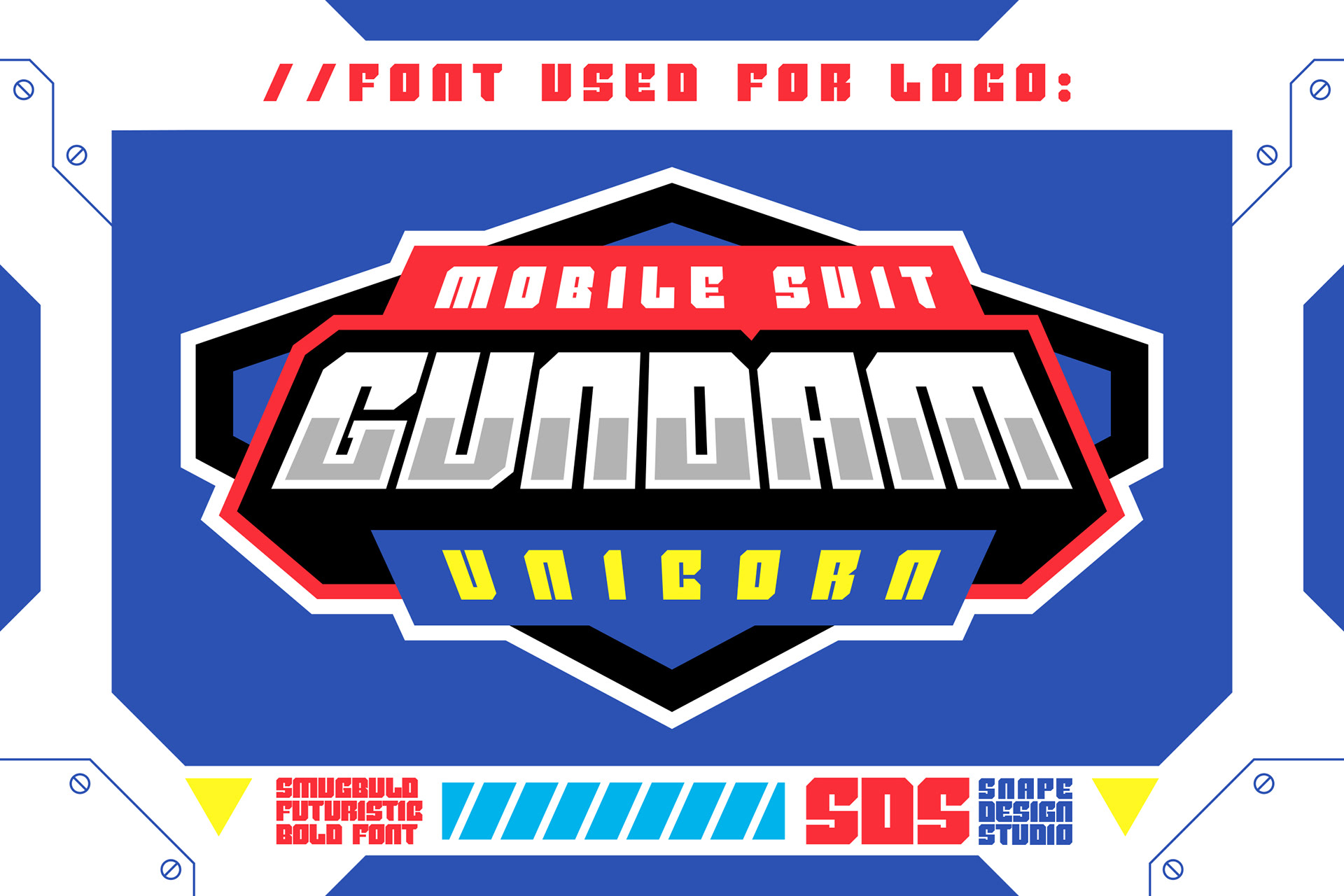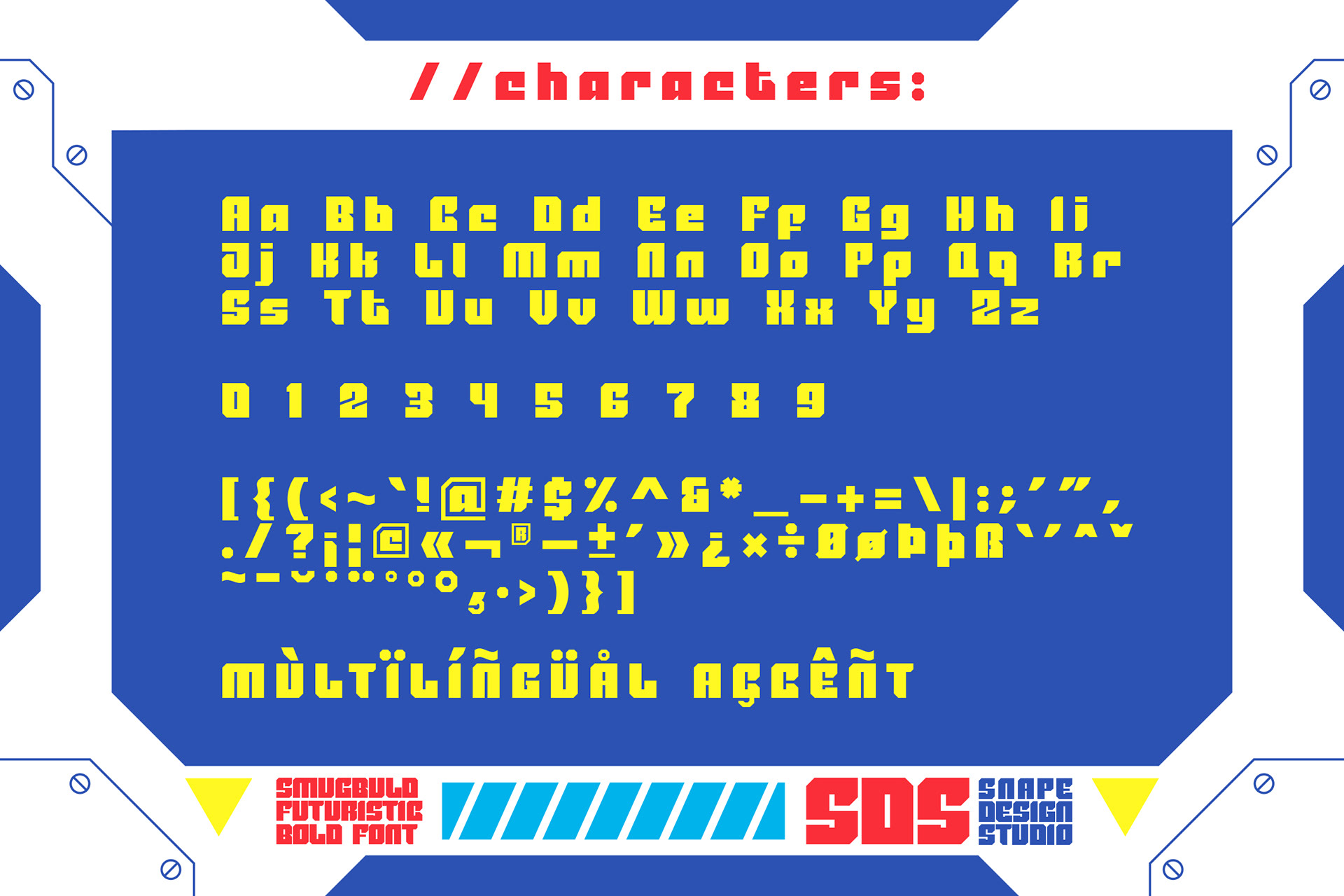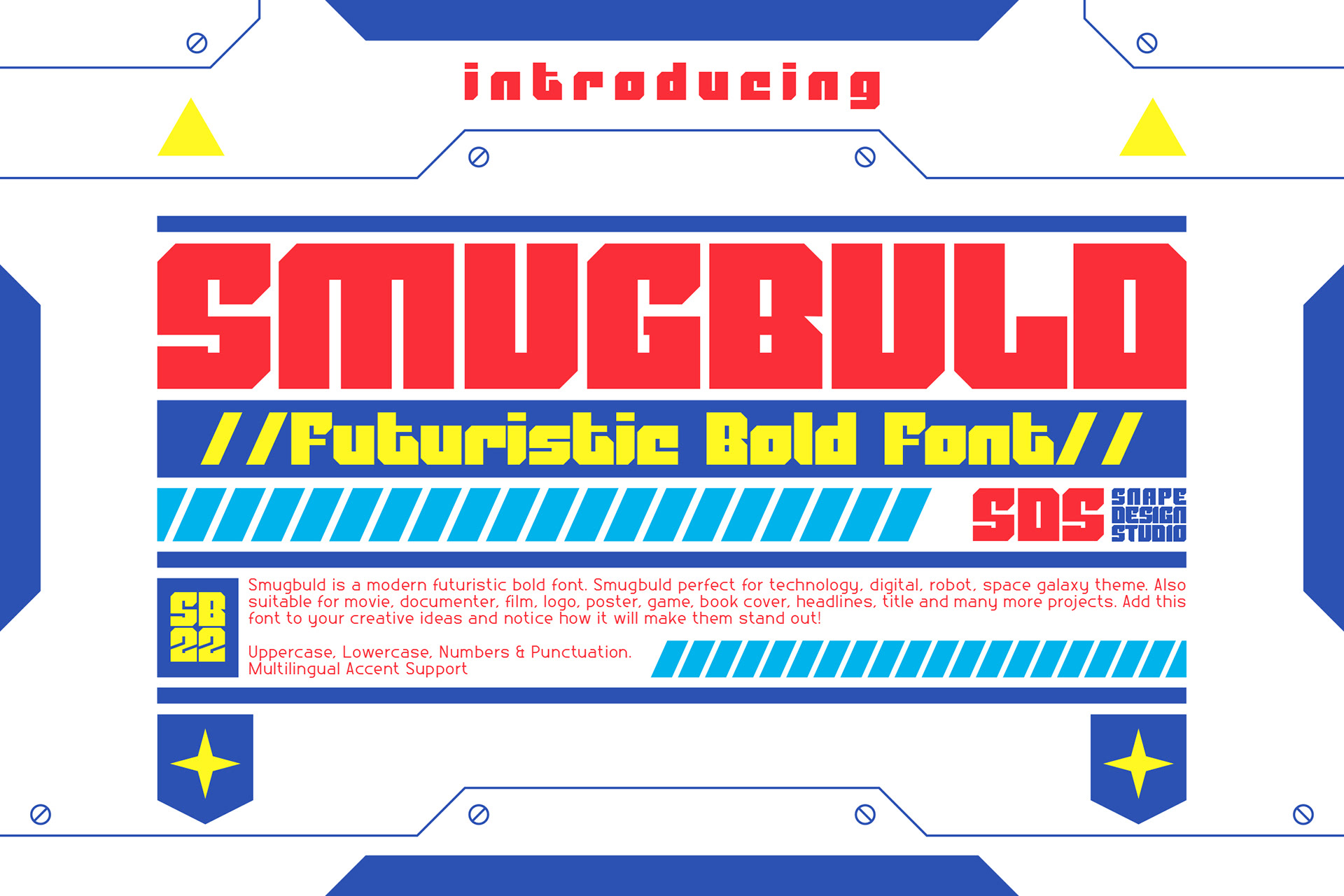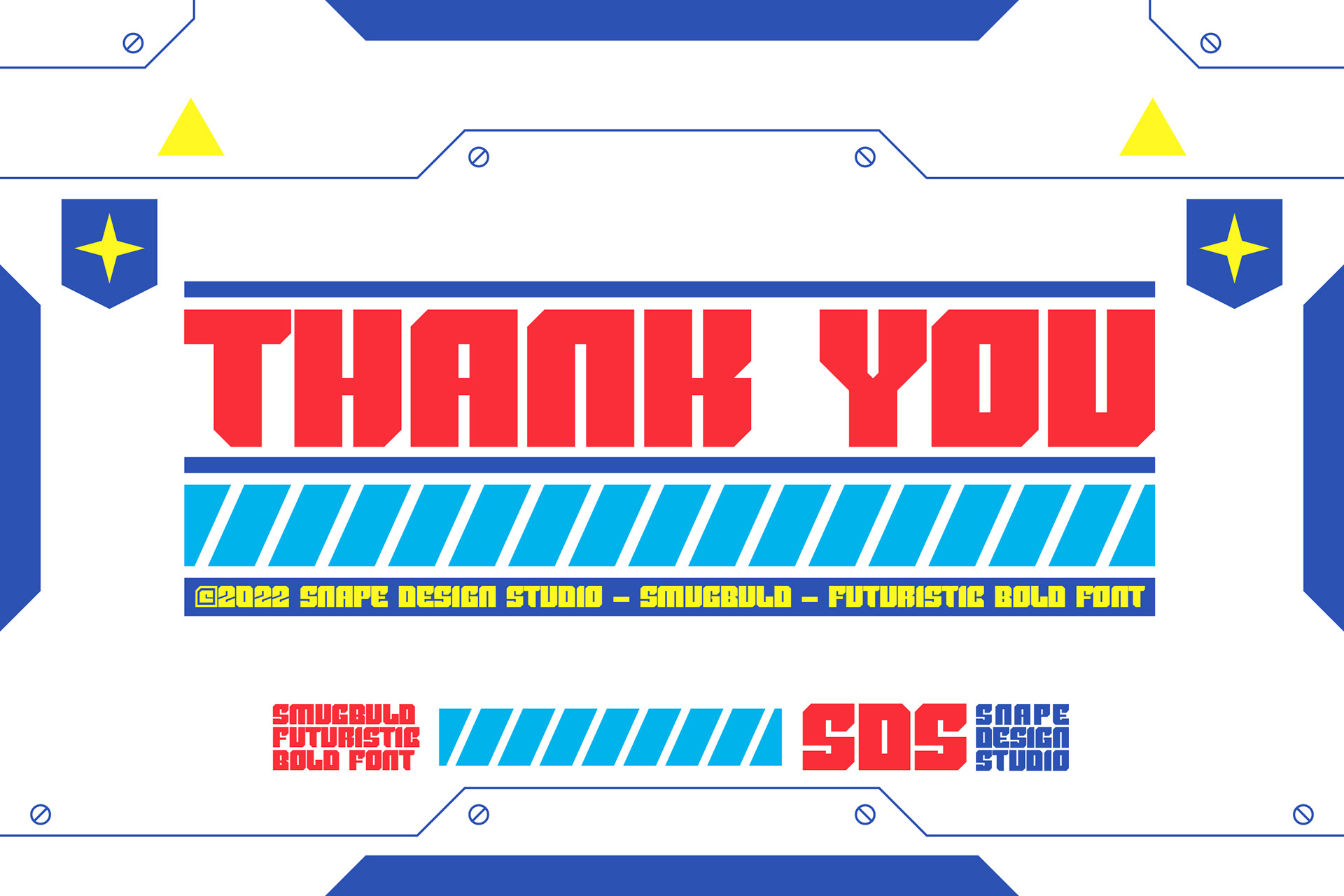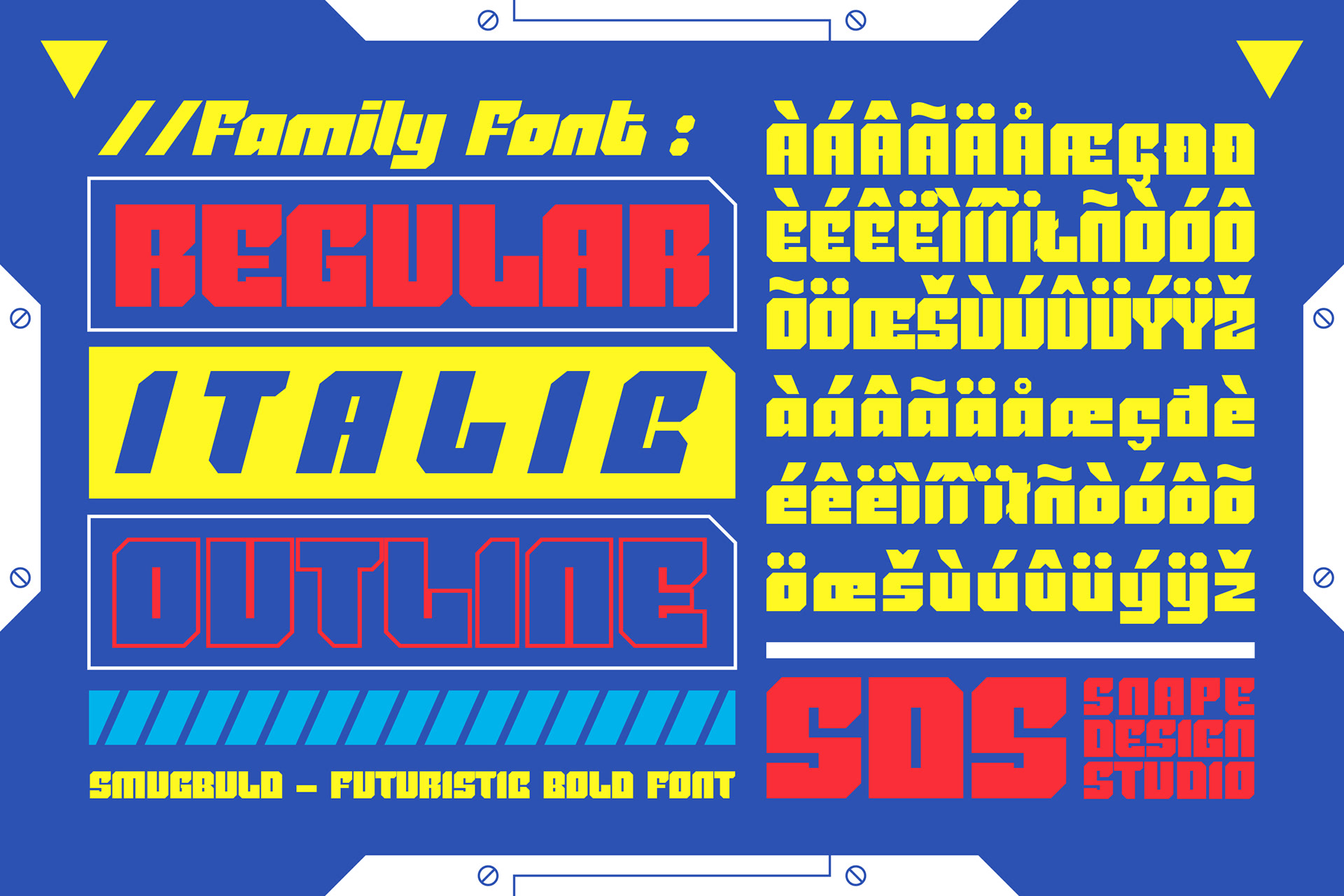
Smugbuld is a modern futuristic bold font. Perfect for technology, robot, digital, space galaxy theme. Also suitable for movie, documenter, film, logo, poster, game, book cover, headlines, title and many more projects. Add this font to your creative ideas and notice how it will make them stand out!
Smugbuld - Futuristic Bold Font design by Ario Sabrang Damar publish under Snape Design Studio